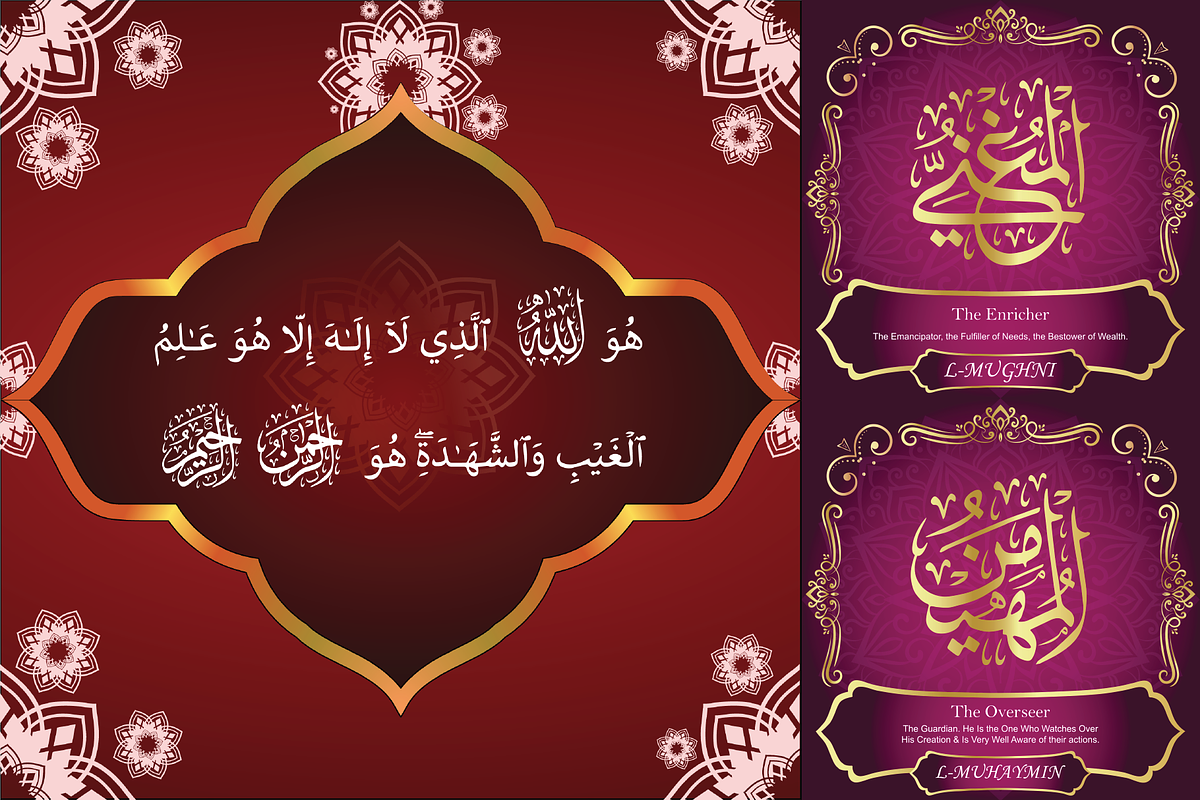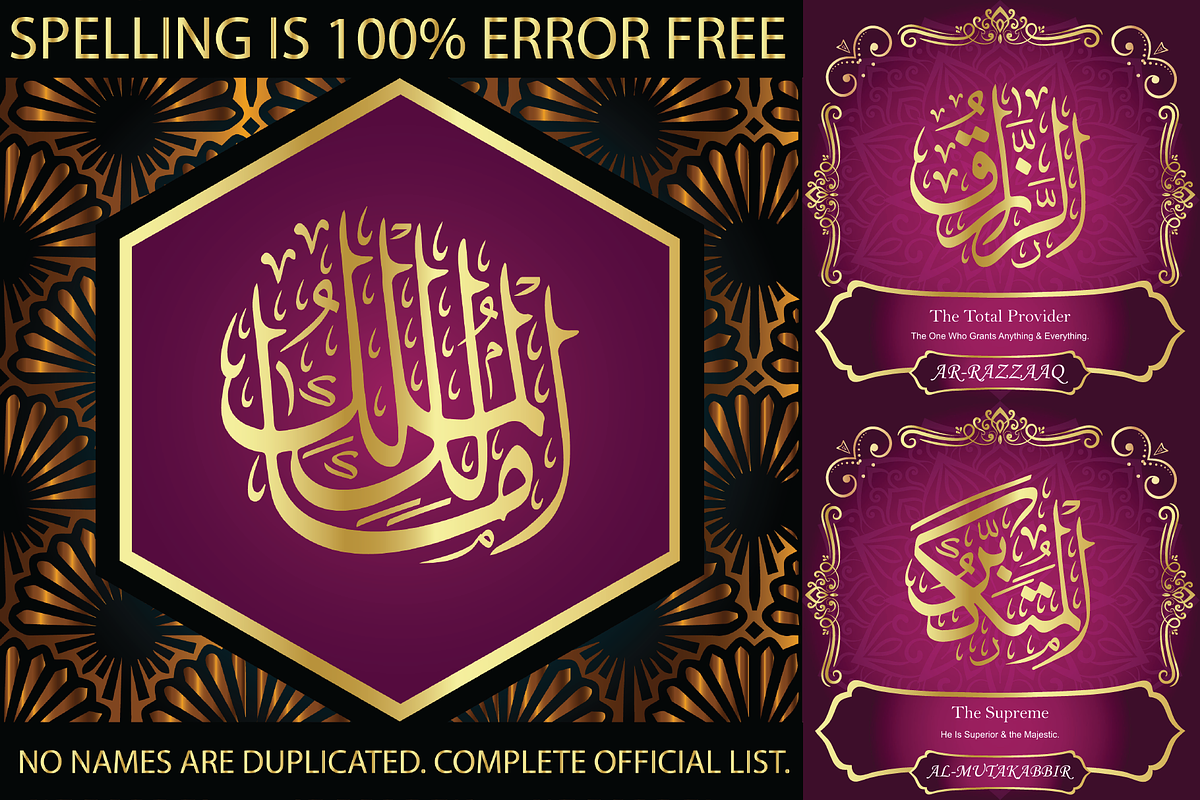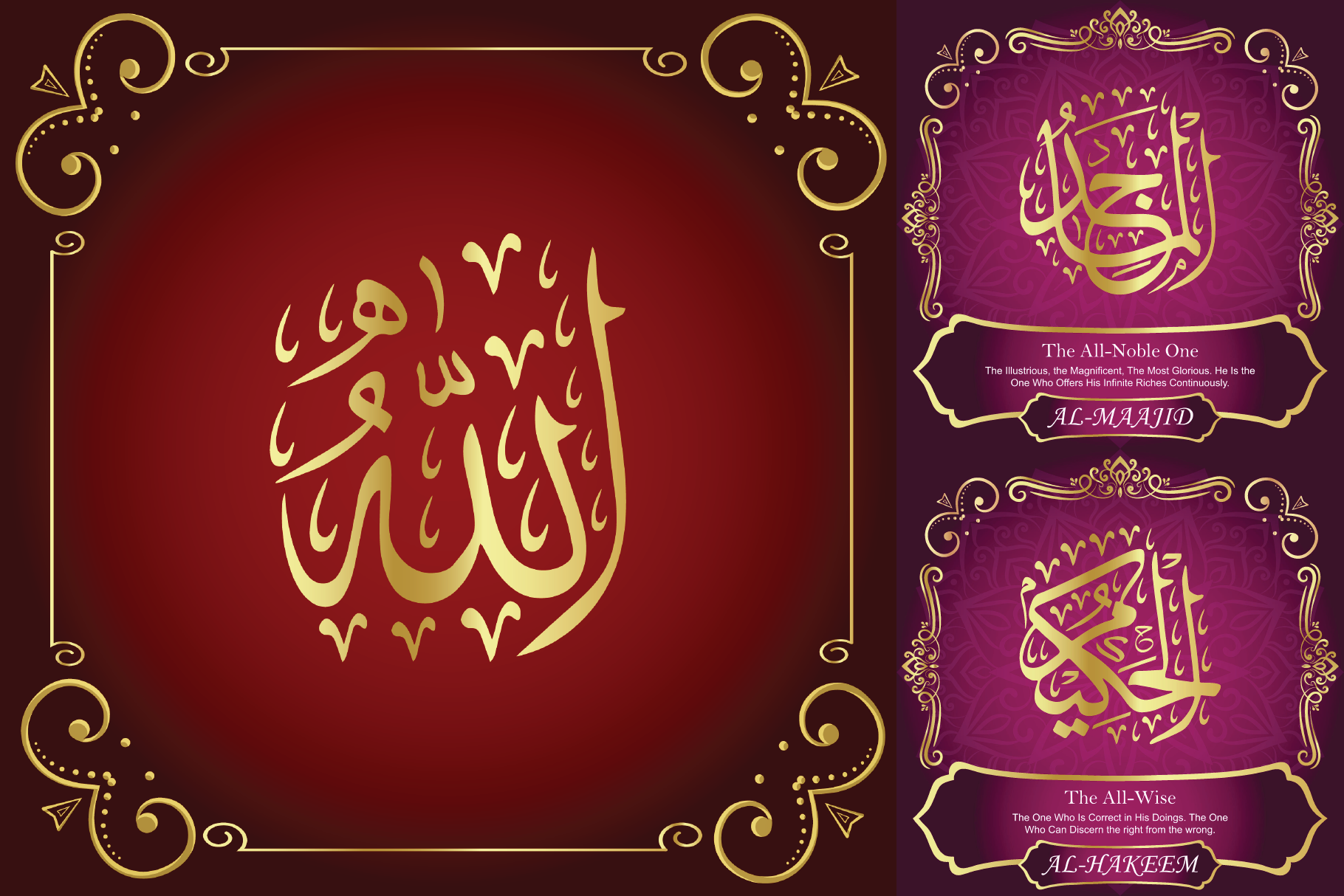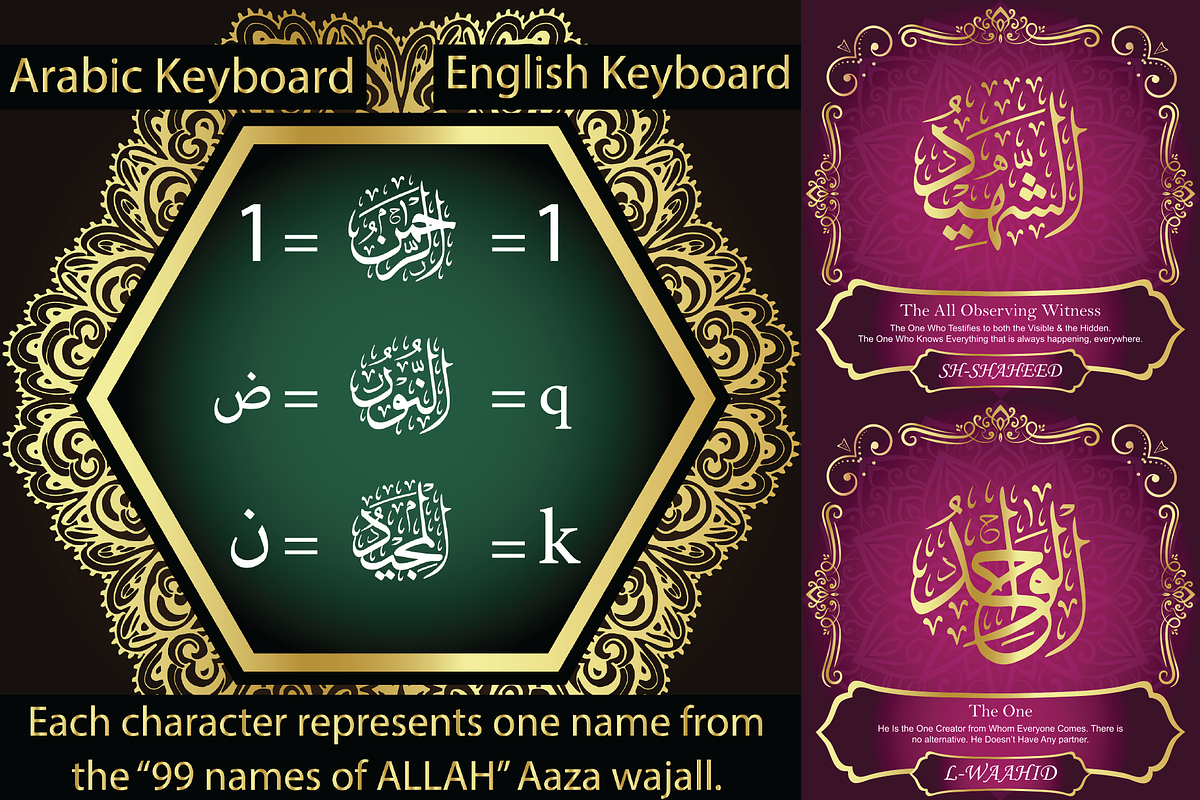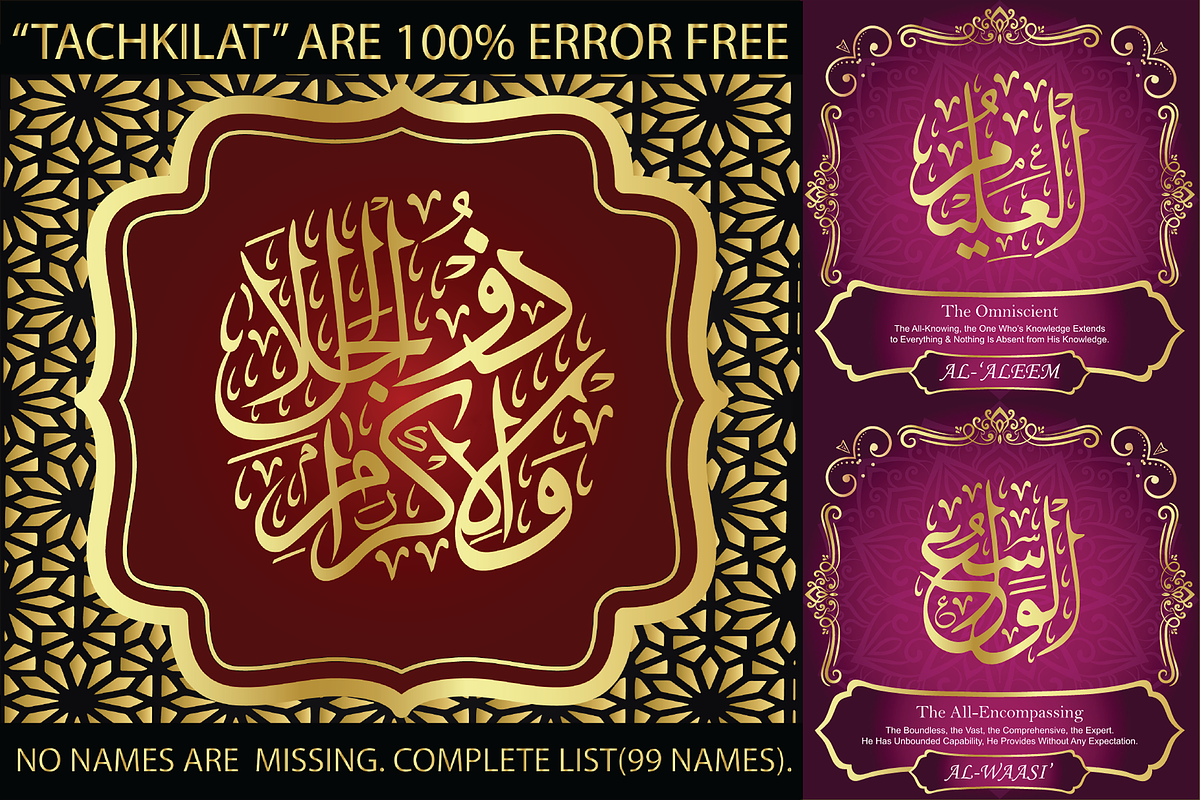
99 Names of ALLAH "Compact" Font
We have transformed the “99 names of ALLAH” into a font. That means each key on your keyboard represents 1 of the 99 names of ALLAH Aaza Wajal. The fonts work with both the English and Arabic Keyboards.
We call this Calligraphy "Compact" because as you can see everything is very close and decorative symbols are at a maximum. The first "alef" has neither a "hamzit wasel" nor a "fatha", this indicates to skip that first alef so instead of saying "AR-RAHMAAN" you say "R-RAHMAAN". (in the zip file you will find a pdf file explaining the differences in the "harakat", pronunciation and spelling according to the Holy Quran). The calligraphy is anything but traditional & we have used all the decorative letters except for the "Ye". In other calligraphy you don't usually find the decorative letters: "Dal, Ra & Ye" but we like them and we use them, the important thing is that they don't change the pronunciation or the meaning. Decorative letters used in this calligraphy: "Mim, Aain, Sin, HHe, He, Kaf, Alef, Ta, Dal, Ra & Saad".
Purpose & use:
- Writers: Highlight the names in your texts in beautiful Islamic calligraphy.
- Editors: Use with kinetic typography templates (AE) & editing software.
- Designers: The very small details in the names does not affect the quality. Rest assured it is flawless.
The MOST IMPORTANT THING about this list is that all the names are 100% ERROR FREE, and you can USE THEM WITH YOUR EYES CLOSED. All the “Tachkilat” are 100% ERROR FREE, all the "Spelling" is 100% ERROR FREE, and they all have been written in accordance with the Holy Quran. No names are missing and no names are duplicated. The list is complete "99 names +1". The +1 is the name “ALLAH” 'Aza wajal.
Another important thing is how we use the decorative letters. In every font you will see small decorative letters, these letters are used only in accordance with their respective letters to indicate pronunciation & we don't include them randomly. That means "mim" on top or below the letter "mim", "sin" on top or below the letter "sin", and so on and so forth.